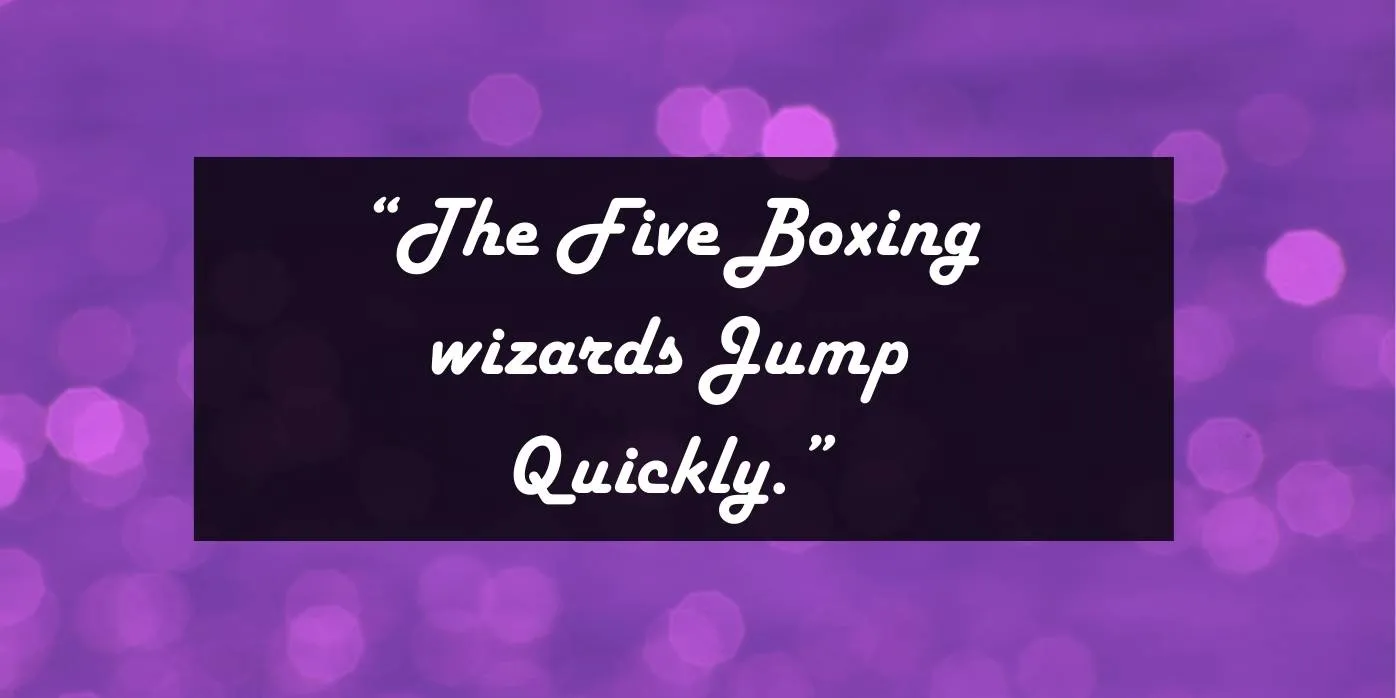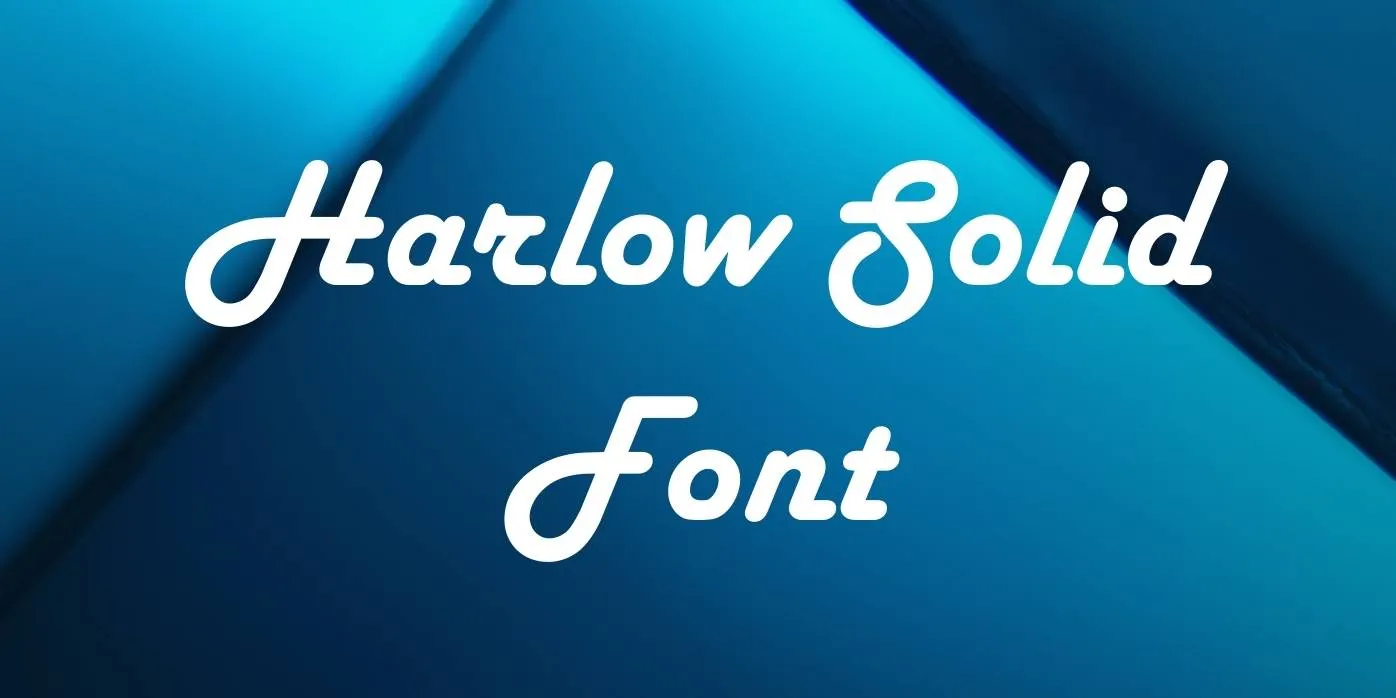
Harlow Solid Font
Today, we discuss a modern and attractive typeface named Harlow Solid Font that was developed by an elegant Colin Brignall. This awesome typeface Script font family. This family includes an italic, regular, and Bold version. It is best for headlines, advertising purposes, and badge making.
You can use this font in any design project. It is a script-typeface that was designed in 1966. The design of Harlow’s solid Font is based on the letterforms of the early 20th-century German typeface Akzidenz-Grotesk. It is best for CSS and SVG.
This cute font is a strong typeface that is good for headlines and display purposes. The italic version of this typeface is good for setting text in small sizes. Its copy and paste function is very useful for various designs. Its alternative december font is perfect for a lot of designs.
It is a versatile typeface that can be used for a variety of purposes. The regular weight is good for body text and the Bold weight is good for headlines. The italic version is good for setting text in small sizes. This amazing Font is a great choice for any design project.